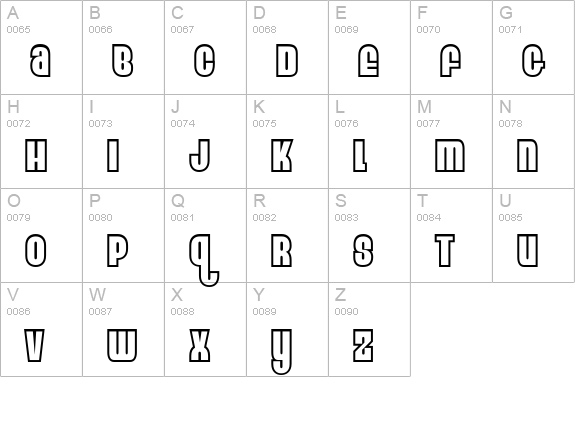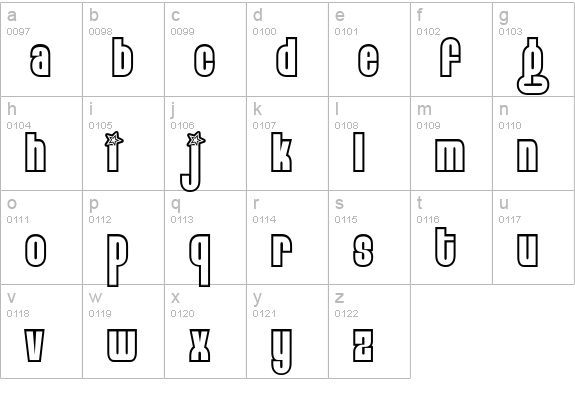
Eight Track program 3 font is a modern and stylish typeface that exudes energy and creativity. With its bold and dynamic letterforms, this font is perfect for grabbing attention and making a statement in your designs. Whether you are working on posters, flyers, or logos, Eight Track program 3 font will add a touch of edginess and flair. Best of all, Eight Track program 3 font is available for free download at FontsMarket.com. Take advantage of this amazing offer and enhance your projects with this unique and eye-catching font. Download now and unleash your creativity with Eight Track program 3 font!